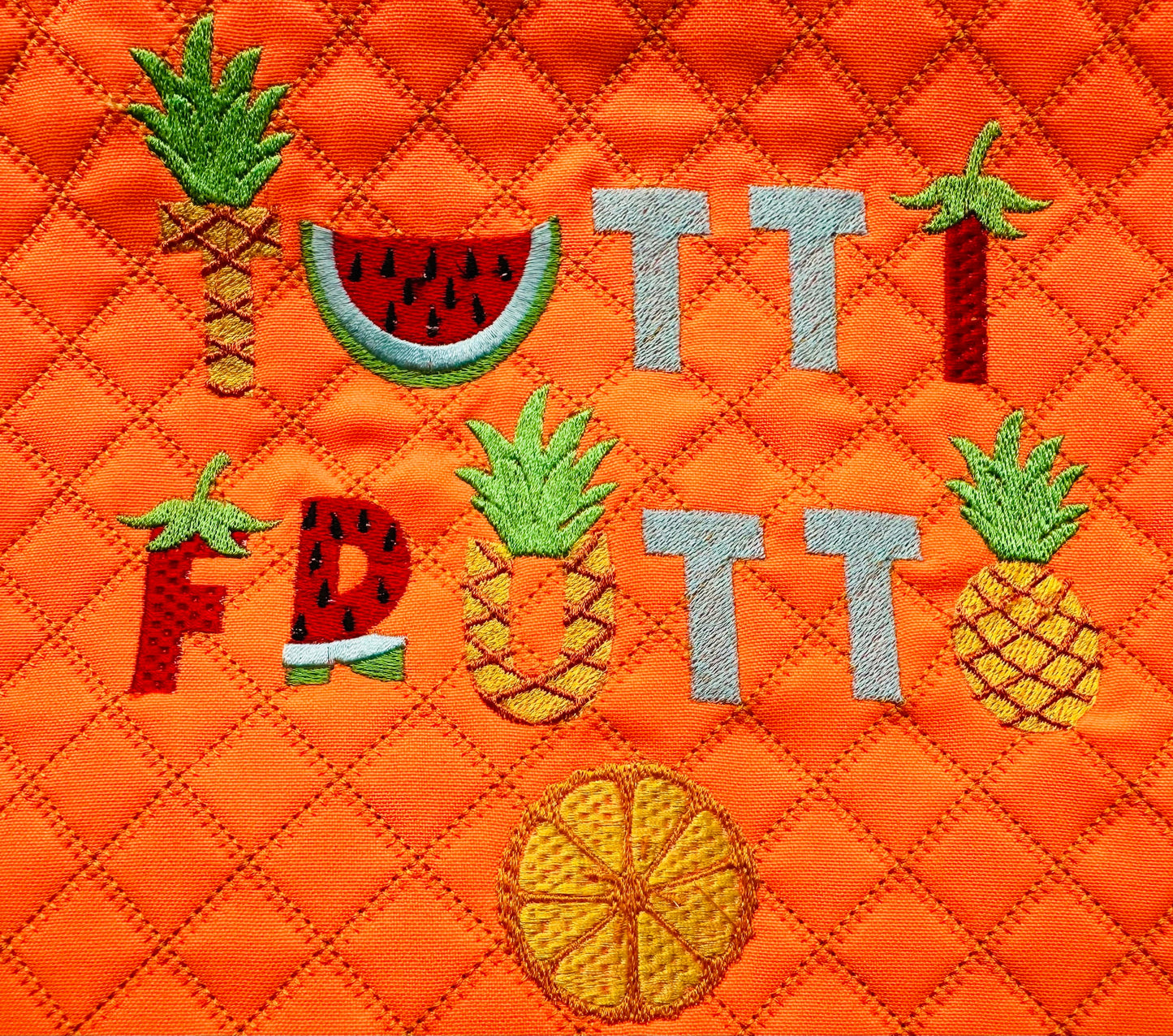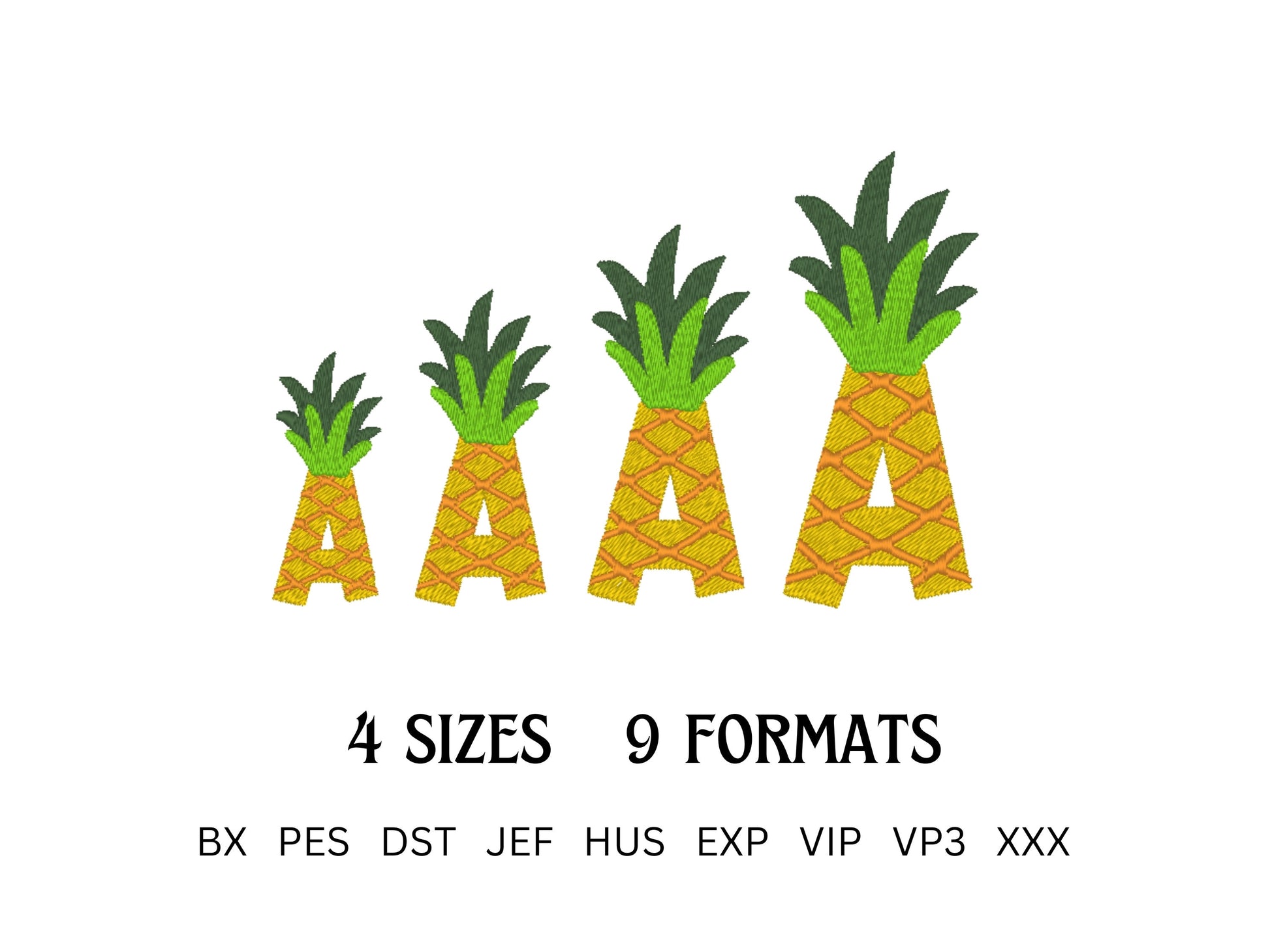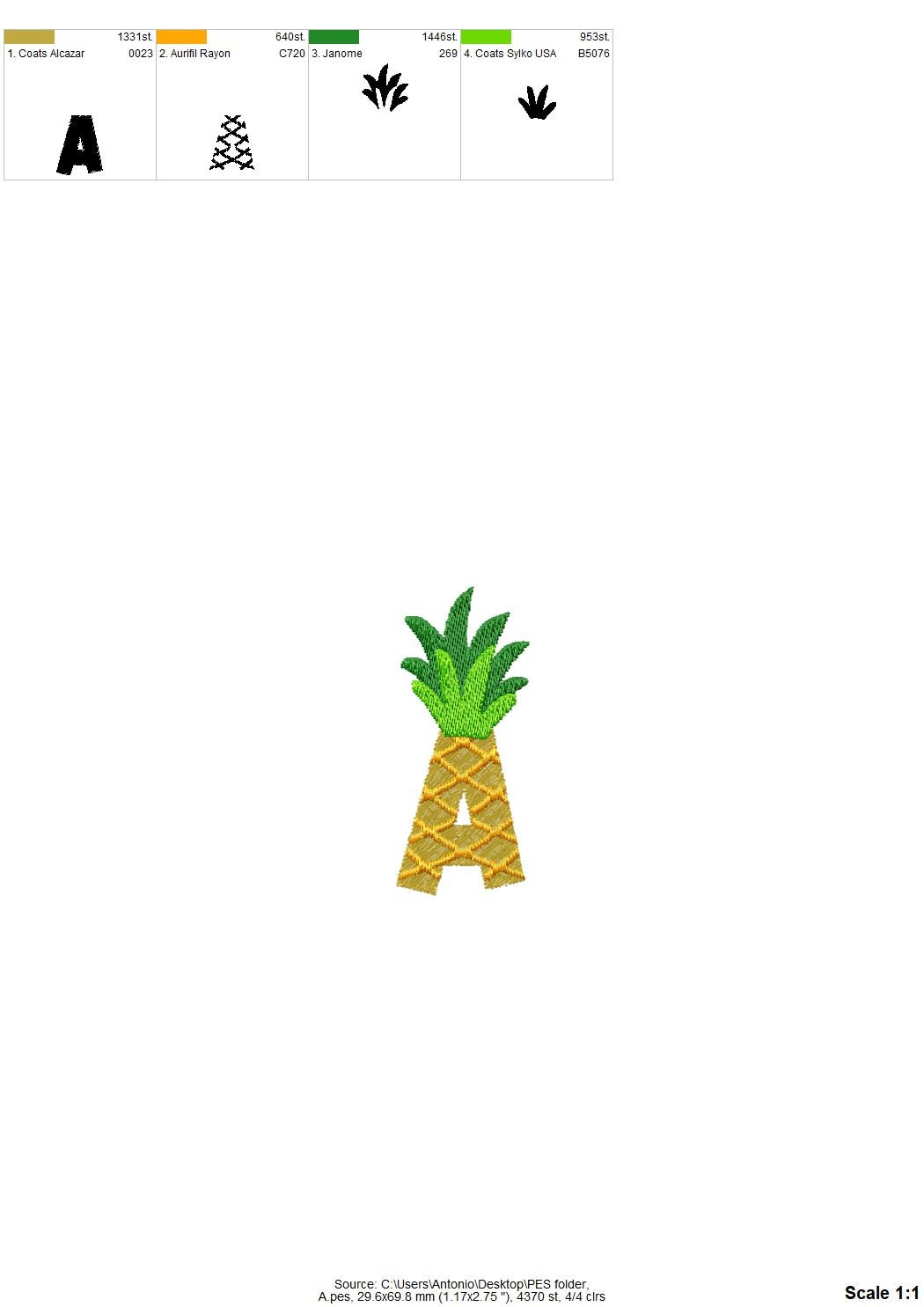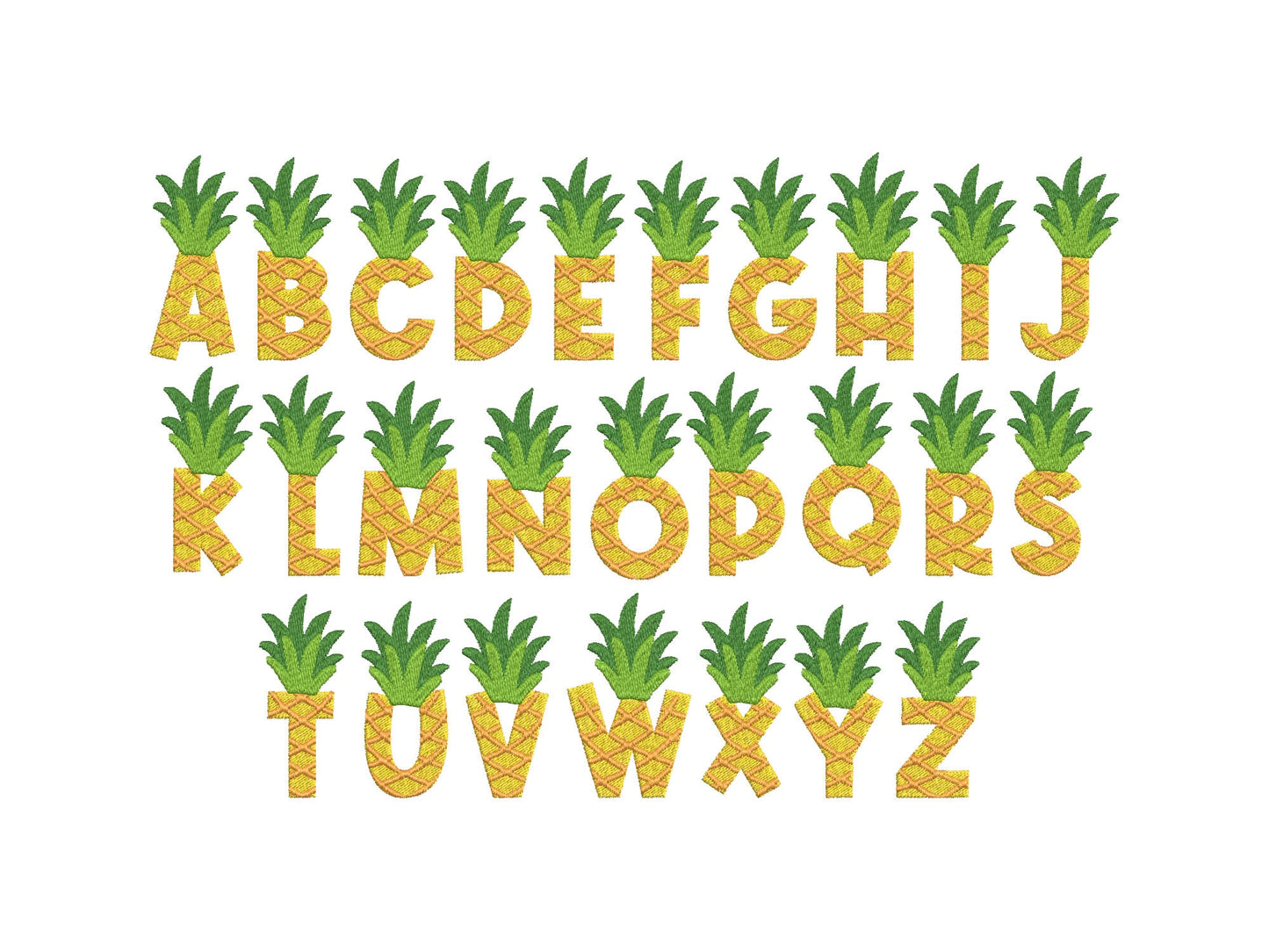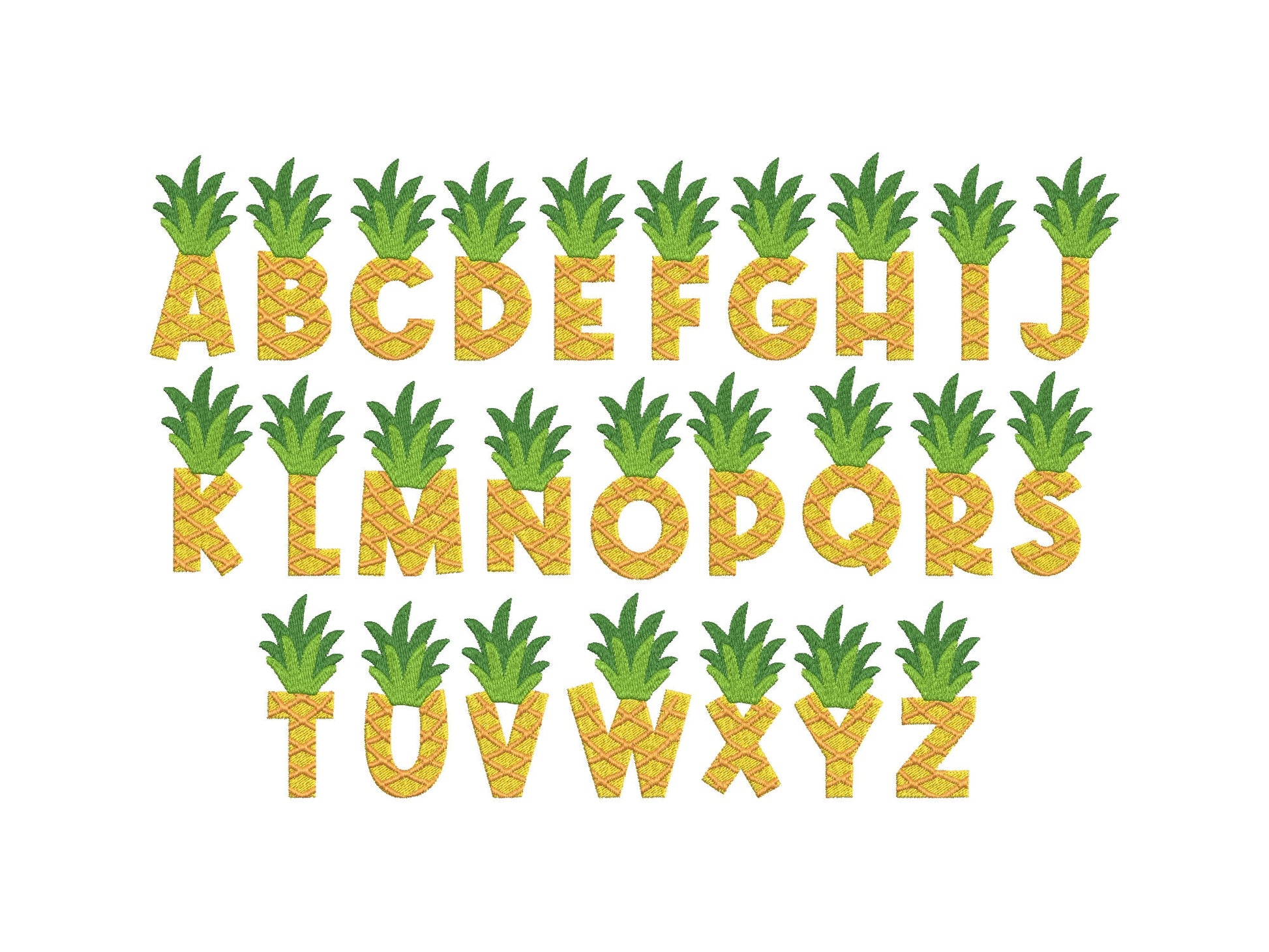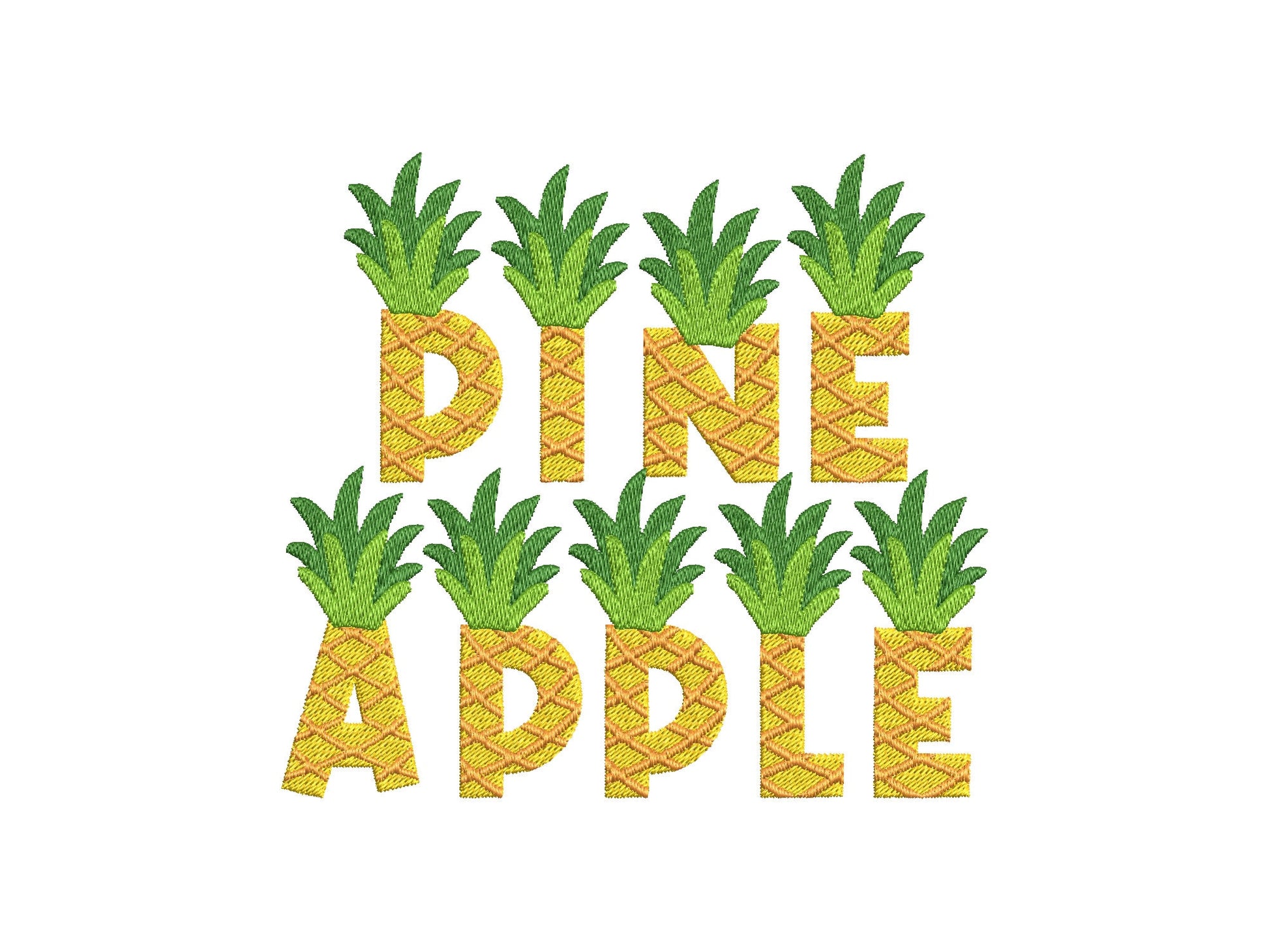
Patterned Pineapple Font Tutti Frutti
Or click to open the linkA patterned pineapple font with little leaves on top of every letter. Summery for beach bags, towels, kids' shirts and names.
Uppercase letters A to Z shaped like pineapples, with leaves on top, in four sizes: 2.2, 2.7, 3.3 and 4 inches.
- Patterned pineapple font
- Uppercase letters A-Z